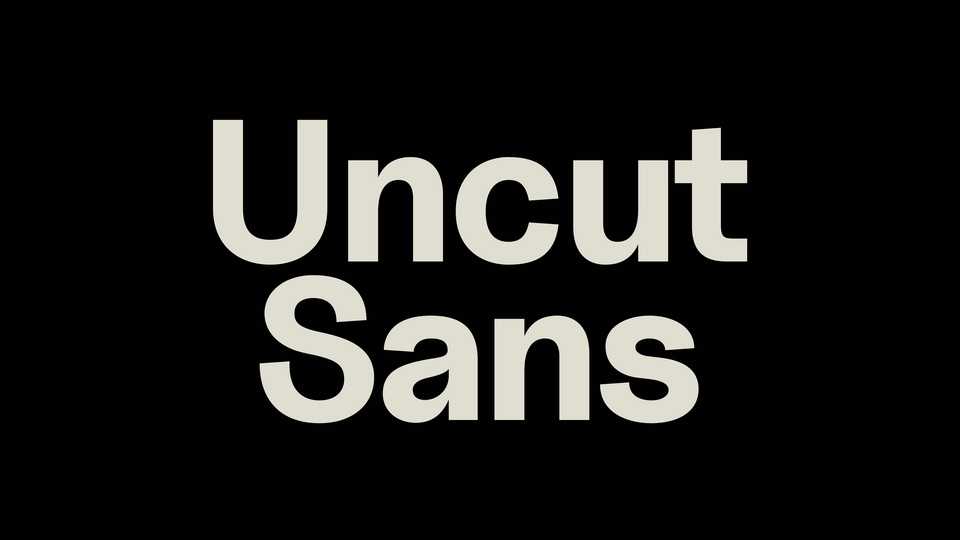
Download Uncut Sans font, yet another slightly quirky sans serif typeface, designed with absolutely no investigation or research into any other typefaces from any specific time period. it tries to capture the essence of nothing, really.
Designer: Kasper Nordkvist